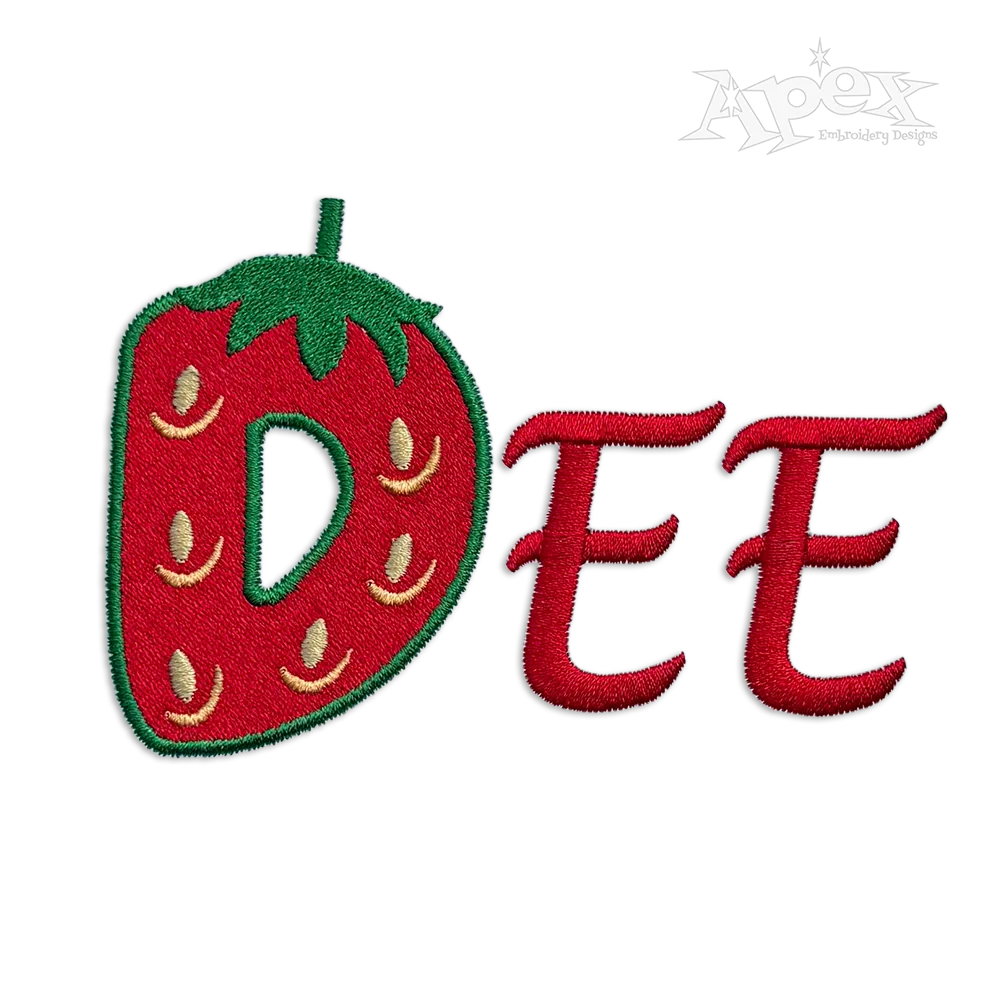
Strawberry Embroidery Font
There is an irresistible, sun-ripened joy in letterforms that balance whimsical charm with exquisite needlework precision. Inspired by vintage fruit-crate typography, nostalgic country pantries, and sun-drenched garden afternoons, the Strawberry Embroidery Font brings an infectious, lighthearted elegance to your hoop. Each capital letter swells with playful personality and generous proportions, designed to capture the lush, juicy fullness of its namesake fruit while stitching out with the crisp, lustrous finish expected of heirloom embroidery.
Project Ideas for Strawberry Embroidery Font
The cheerful, voluptuous curves of this alphabet make it a natural fit for both nostalgic keepsakes and fresh, modern lifestyle stitching:
- Luxury Table Linens: Stitch bright single-initial monograms on washed linen cocktail napkins, placemats, or rustic tea towels for farm-to-table dinner gatherings.
- Bespoke Resort Wear & Totes: Add an upbeat, sun-kissed initial to heavy cotton canvas beach bags, sun hats, or breezy poolside cover-ups.
- Heirloom Childrenswear: Personalize heirloom birthday pinafores, denim jackets, sun suits, or soft cotton knit pullovers for little ones.
- Charming Kitchen Accents: Elevate farmhouse aprons, quilted oven mitts, or gingham bread basket liners with bold, appetizing typography.
- Personalized Gifting: Create cheerful bridal party vanity bags, weekend getaway duffels, or customized holiday gift sacks.
Because the Strawberry Embroidery Font carries generous visual weight, intentional placement ensures the letterform sings without overwhelming the garment:
- Corner Diagonal: Angle a single letter 1.5 to 2 inches from the hem of a mitred linen napkin to create a sophisticated, cottage-chic tabletop accent.
- Center Chest: On sweatshirts, tees, and children's rompers, center the 3-inch or 4-inch letter between the armholes, positioned roughly 2.5 to 3 inches below the front neckline.
- Canvas Carryall Front: Feature the grand 5-inch letter centered between the webbing straps on structural canvas bags for maximum graphic impact.
- Pocket Accent: Hover the 3-inch size directly above an apron pocket or front shirt pocket, anchoring the stitch line cleanly against the seam.
Strawberry Embroidery Font Craft & Letterform Details
Digitizing a plump, expressive letterform requires far more than automated outlines; it requires an intuitive understanding of thread tension, pull compensation, and directional light play. Each letter in this collection is sculpted with smooth, flowing satin stitch pathways that hug the curved swells of the letterforms, allowing high-sheen embroidery thread to catch ambient light like glossy fruit skin.
We have meticulously mapped the stitch densities and travel paths to minimize unnecessary jump trims and eliminate dense, bulky intersections where strokes cross. The result is a smooth, continuous stitch-out with crisp exterior edges, gentle underlay structuring for tactile loft, and the clean, polished finish your heirloom projects deserve.